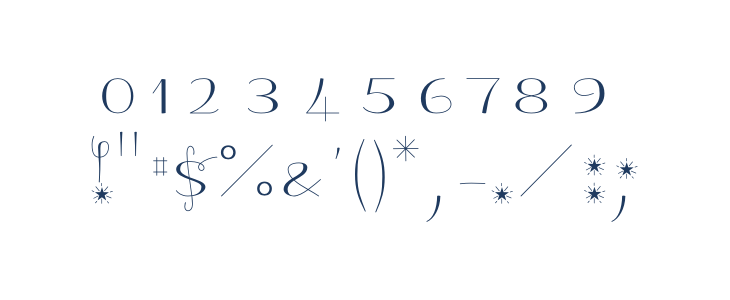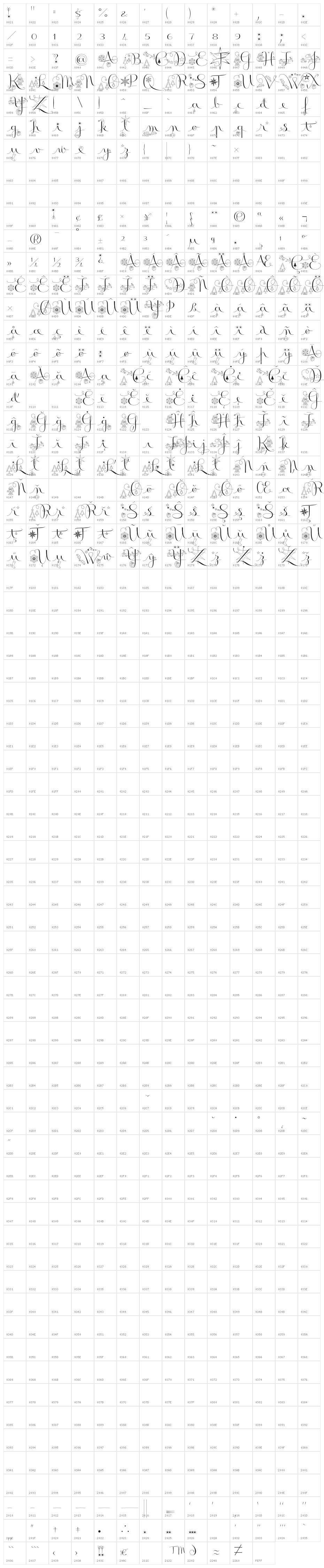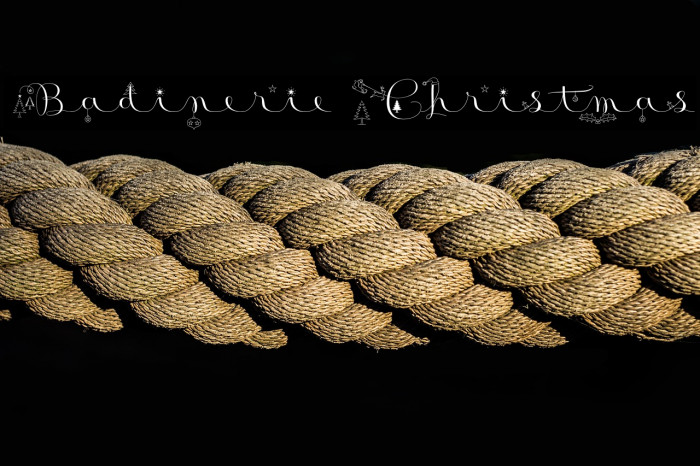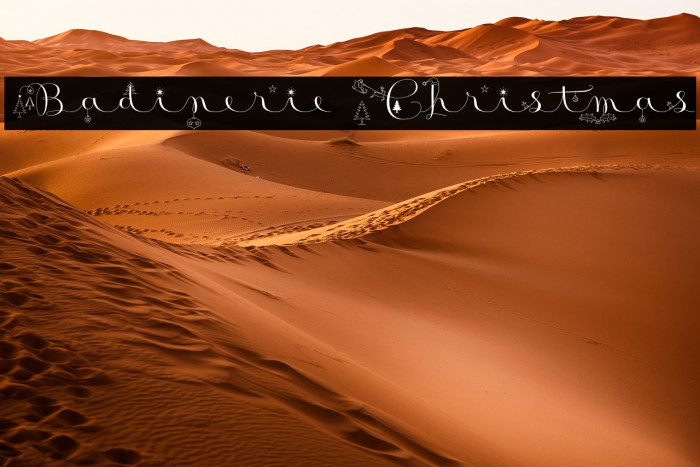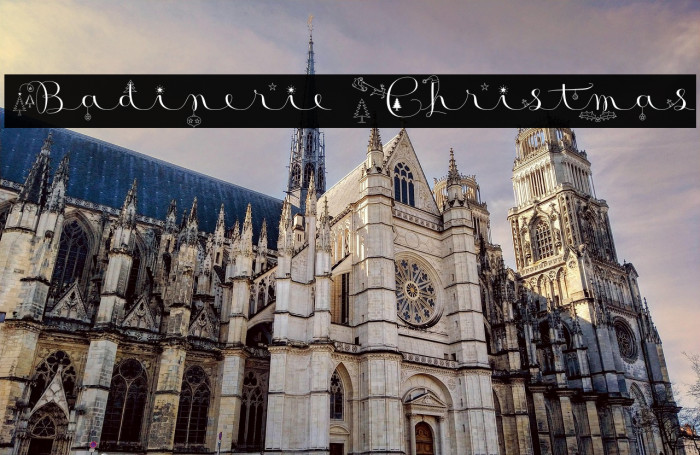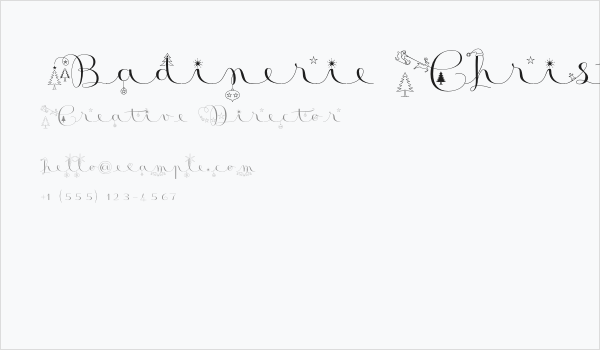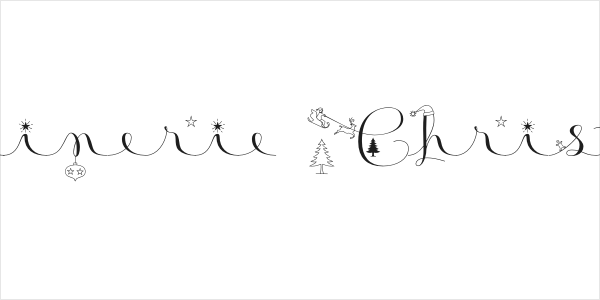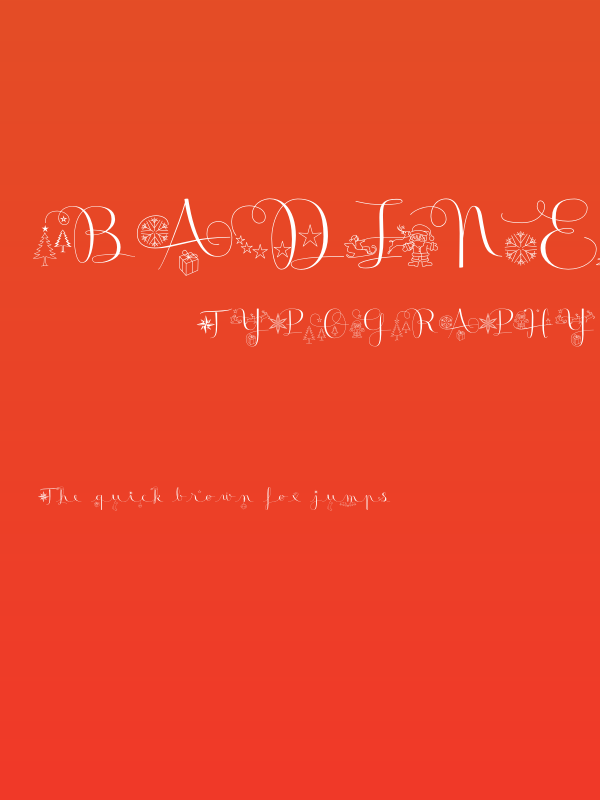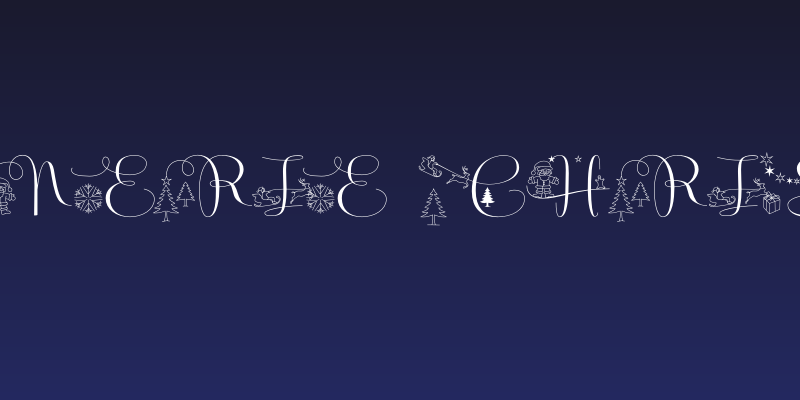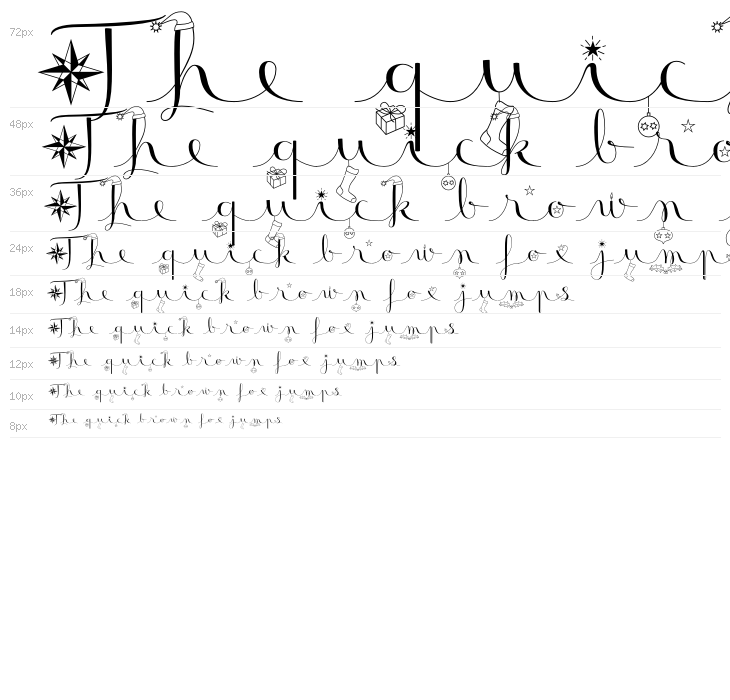
Badinerie Christmas Font
Badinerie Christmas Description
This whimsical and festive font is adorned with delightful Christmas-themed elements, such as snowflakes, stars, and holiday ornaments, integrated into the letterforms. The uppercase letters are elegantly curved with decorative flourishes, while the lowercase letters maintain a playful, handwritten style. Numbers are clean and slightly stylized, complementing the overall festive theme. Special characters are creatively designed, incorporating holiday motifs that enhance the joyful spirit of the font. This font captures the essence of holiday cheer, making it perfect for seasonal designs.
| Proposed Projects | Ideal for holiday cards, festive invitations, seasonal branding, and Christmas-themed posters. |